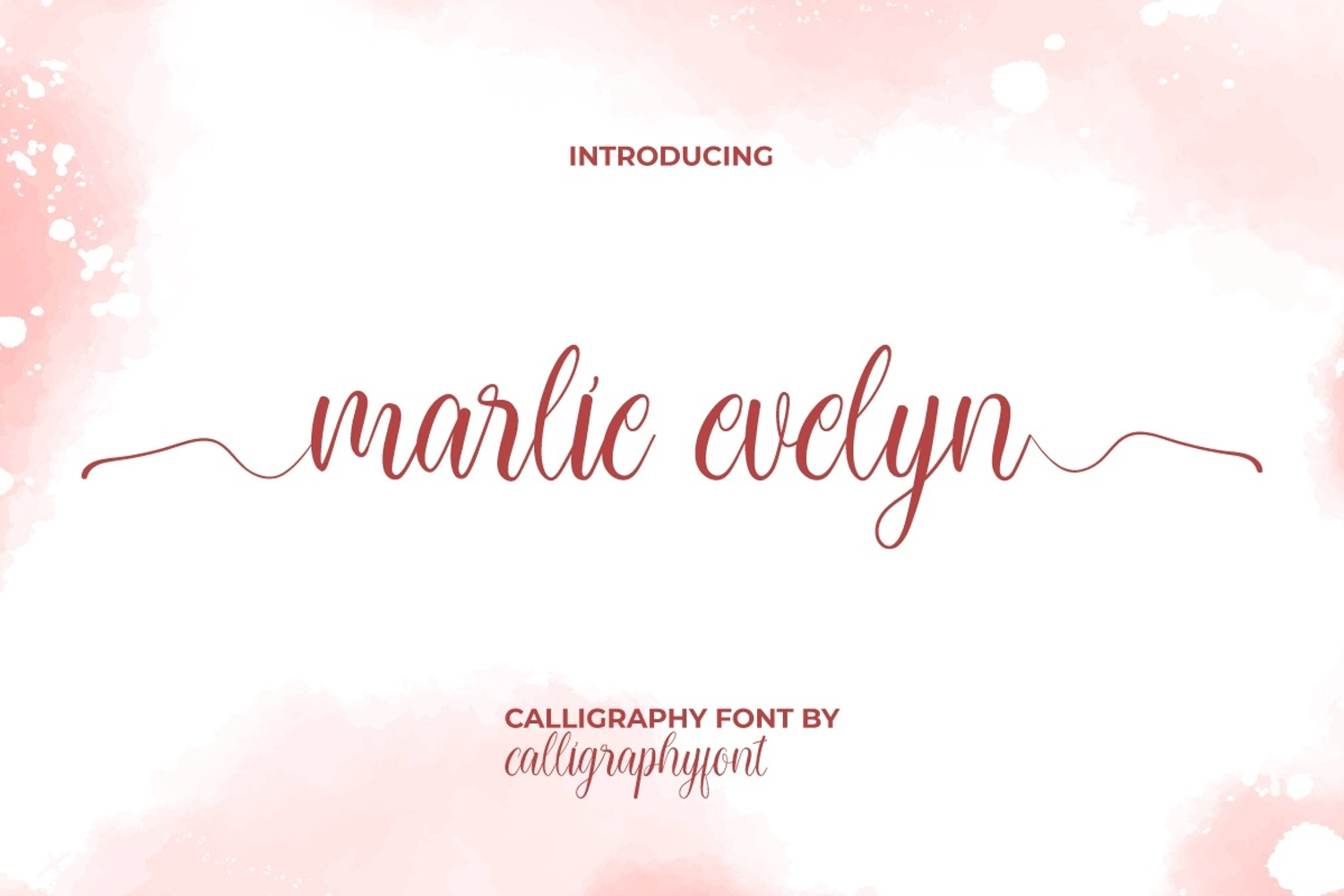
Marlie Evelyn Font is an authentic handcrafted calligraphy font with a touch of modernity and a premium feel that blends perfectly. It’s a great choice of organic typography and feels pers0nal, perfect for the elegant touch needed for coves, greeting cards, label, logos, modern websites, packaging design, titles, watermarks, wedding invitations, and more! This font includes a full set of initial and final lowercase swashes, and a great ligatures to create a realistic handmade calligraphy look for your designs.
Introducing Marlie Evelyn Calligraphy Font, a beautifully crafted calligraphy typeface that blends timeless elegance with a touch of modern sophistication. Designed for designers, artists, and creative entrepreneurs, this font is perfect for anyone who wants to add a graceful and luxurious feel to their projects.
The soft curves and flowing strokes of Marlie Calligraphy Evelyn Font make it ideal for wedding invitations, save-the-date cards, branding projects, product packaging, fashion logos, social media graphics, and more. Its versatile style ensures that whether you’re creating a romantic script for a love letter or an elegant logo for a boutique brand, this font will elevate your design with effortless charm.
One of the key features of Marlie Evelyn Calligraphy Font is its readability. While many calligraphy fonts may look beautiful but lack clarity, Marlie Evelyn strikes the perfect balance between decorative details and clean lines. This ensures your message remains clear while still capturing attention with its stylish form.
Pair it with minimalist sans serif fonts for modern contrasts, or let it stand alone as the hero of your design. Its refined ligatures and smooth letterforms give your work a handcrafted, professional touch that feels pers0nal yet polished.
If you’re searching for a font that conveys romance, elegance, and sophistication, look no further than Marlie Evelyn Calligraphy Font. It’s more than just a typeface – it’s a creative tool that helps you tell stories, express emotions, and create designs that leave a lasting impression.
Marlie Evelyn Calligraphy Font is a calligraphy font that is more beautiful and attractive because it is made carefully in the process so that the letters appear smooth and flawless. It will be perfect for your business needs such as accessories and jewelry stores, event organizer, fashion, florist, furniture, graphic design, handicraft, photography, printing, publishing, restaurant, skincare, spa salon, wedding, and many things.